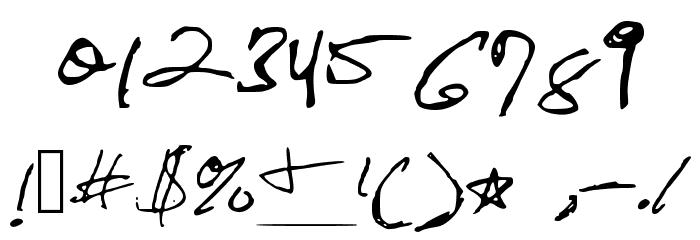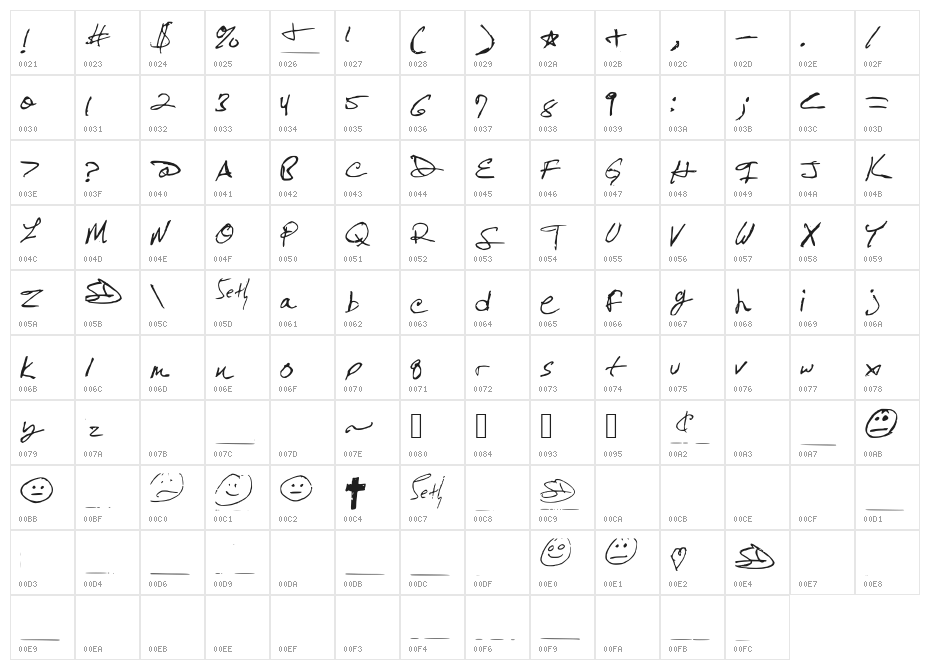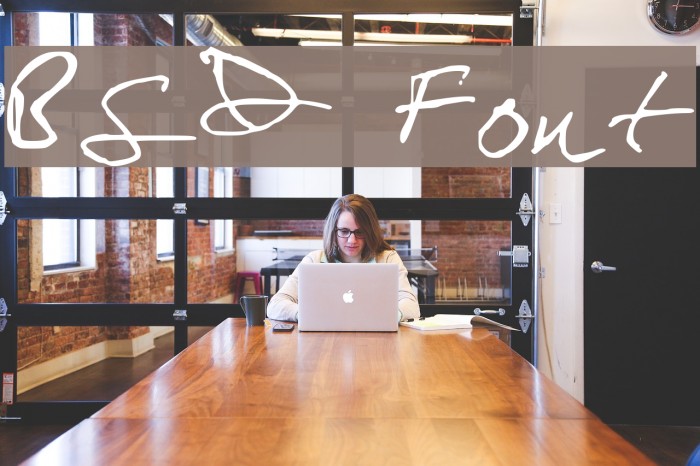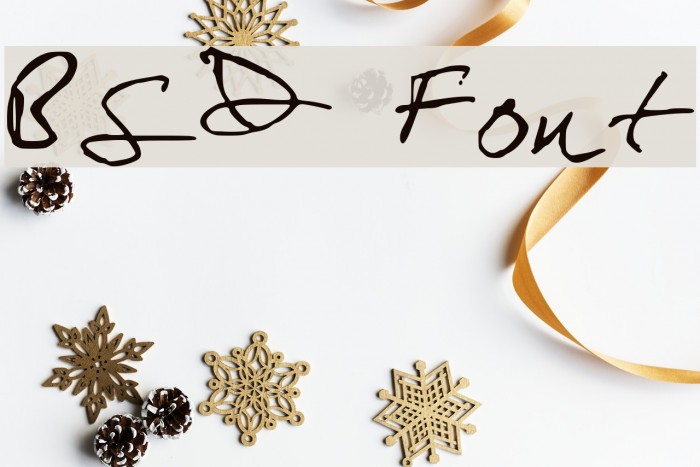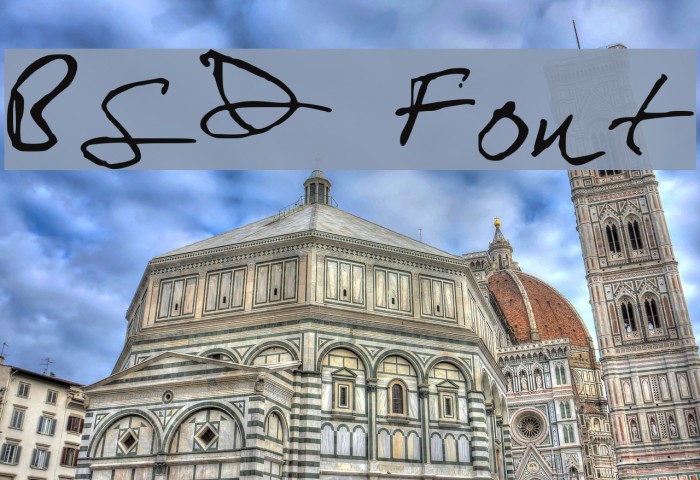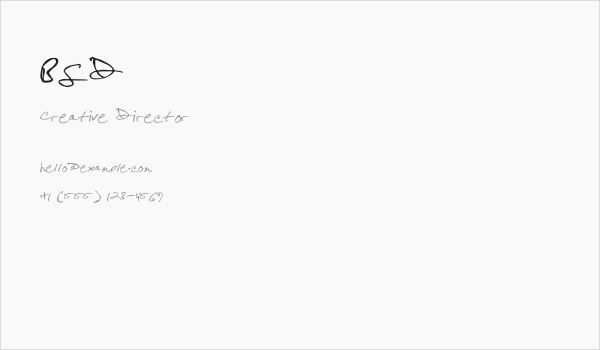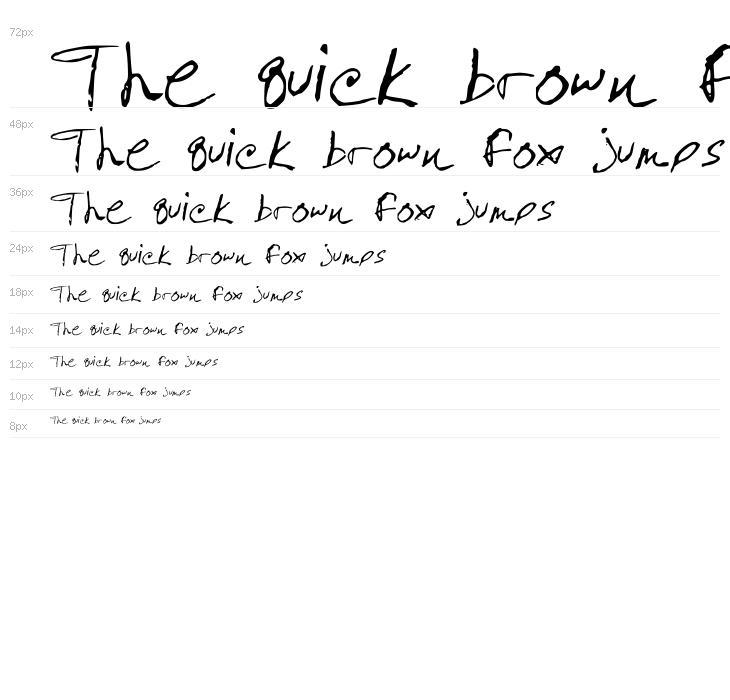
BSD Font
BSD Description
This font exhibits a dynamic and expressive handwritten style, characterized by its fluid and irregular strokes. The letters have a casual, organic feel, with varying line thickness that adds a sense of movement and energy. The uppercase letters are bold and slightly slanted, while the lowercase letters maintain a consistent flow, enhancing the handwritten aesthetic. Numbers and special characters follow the same lively and informal style, making the font suitable for creative and artistic projects. The overall appearance is both personal and approachable, ideal for conveying a sense of authenticity and individuality.